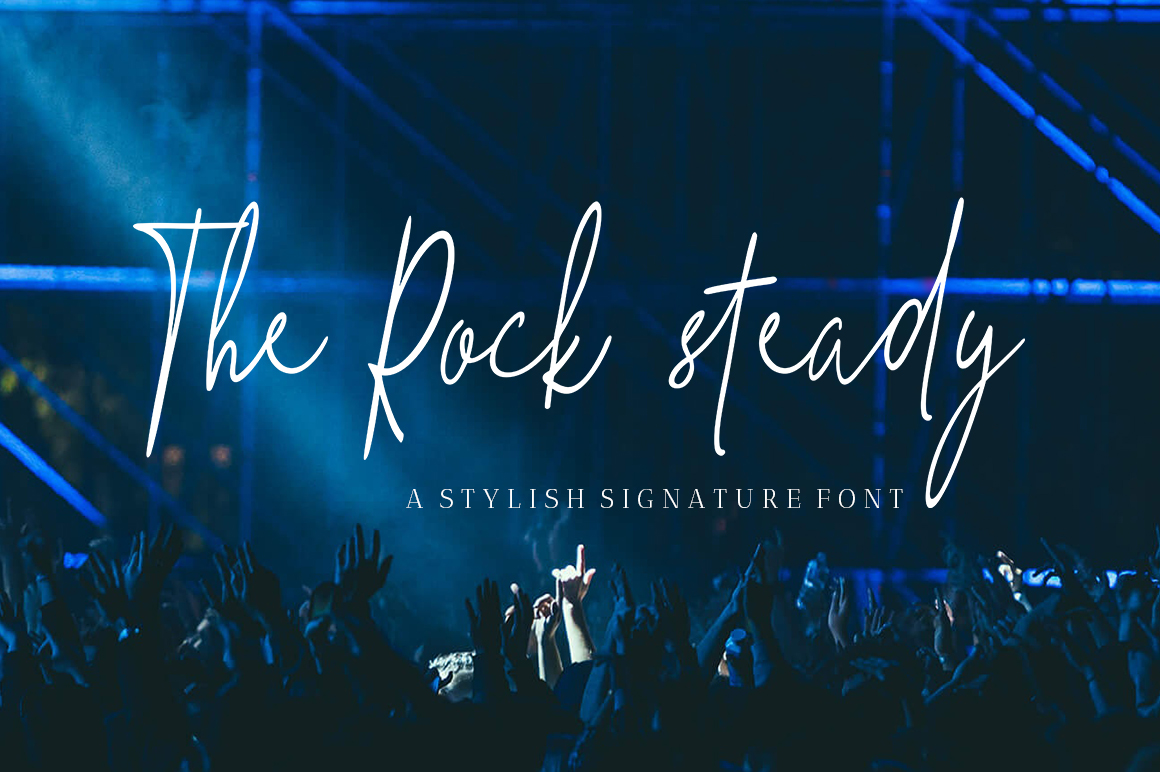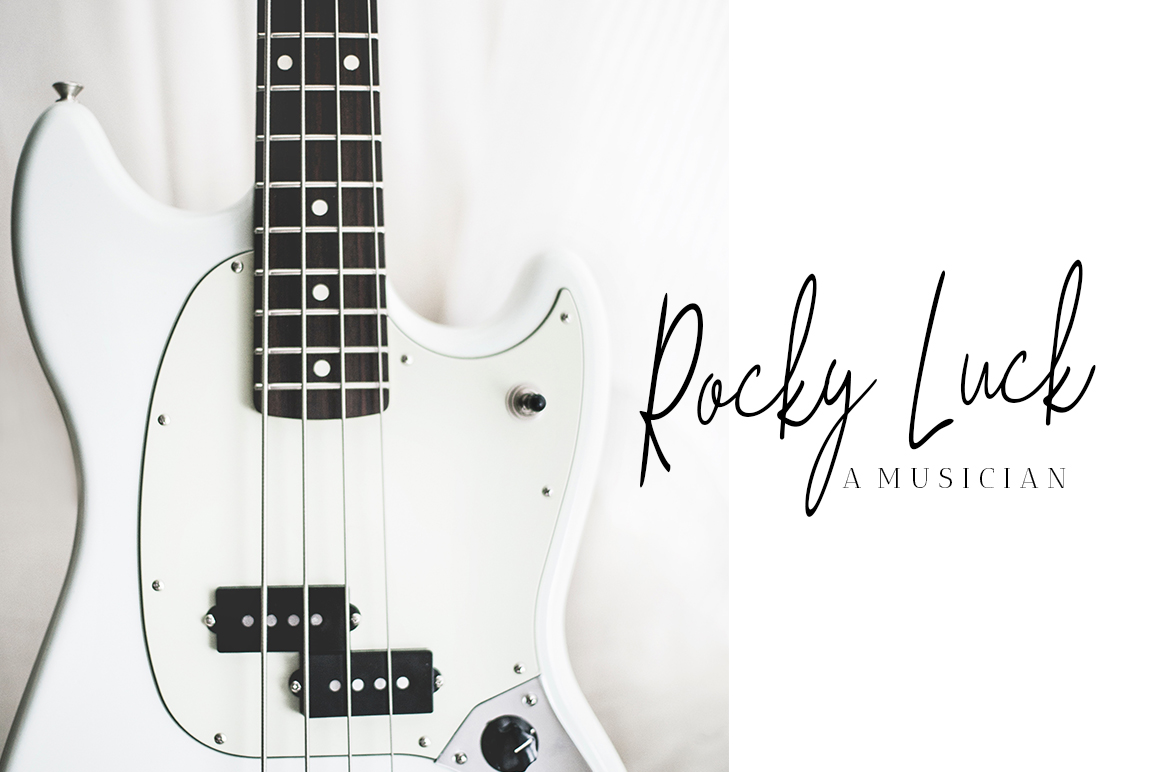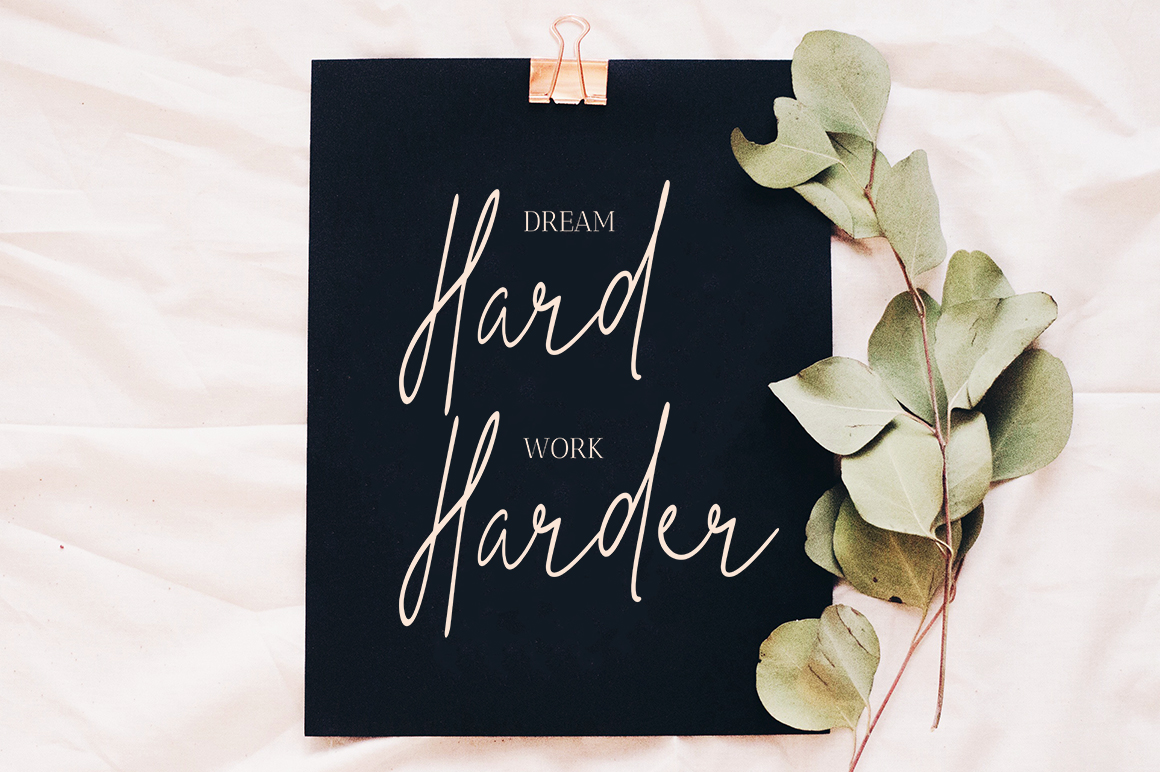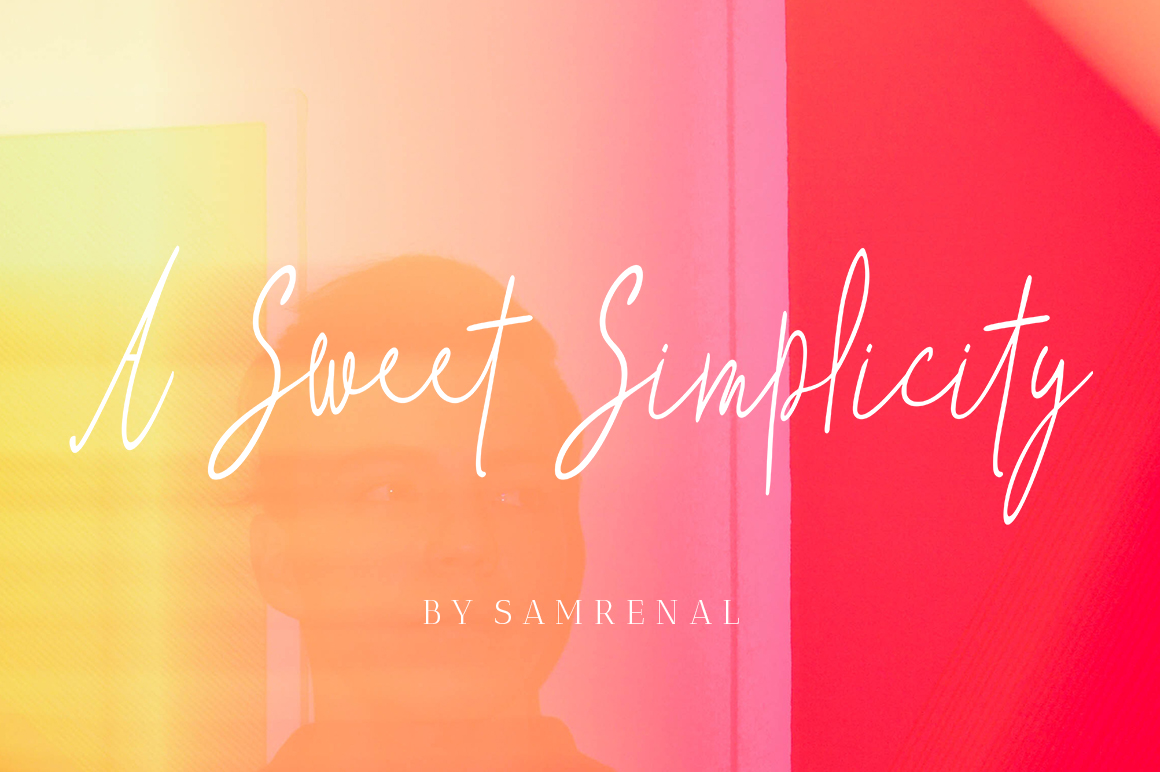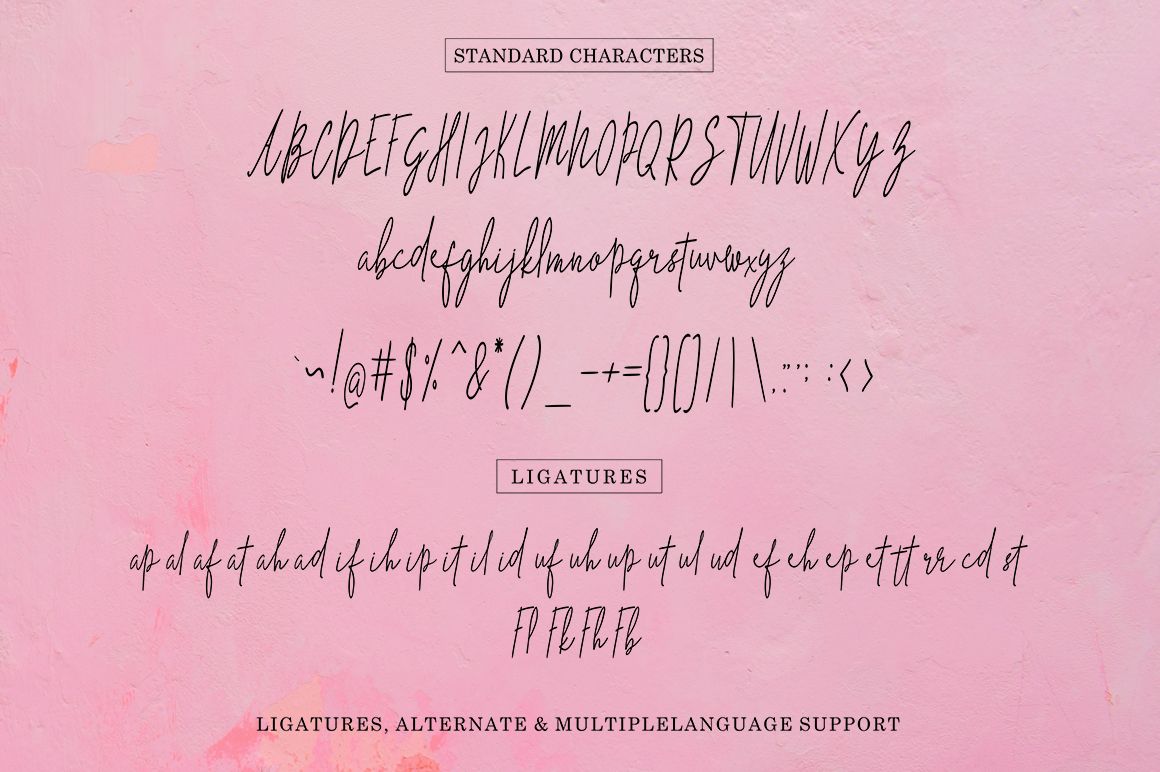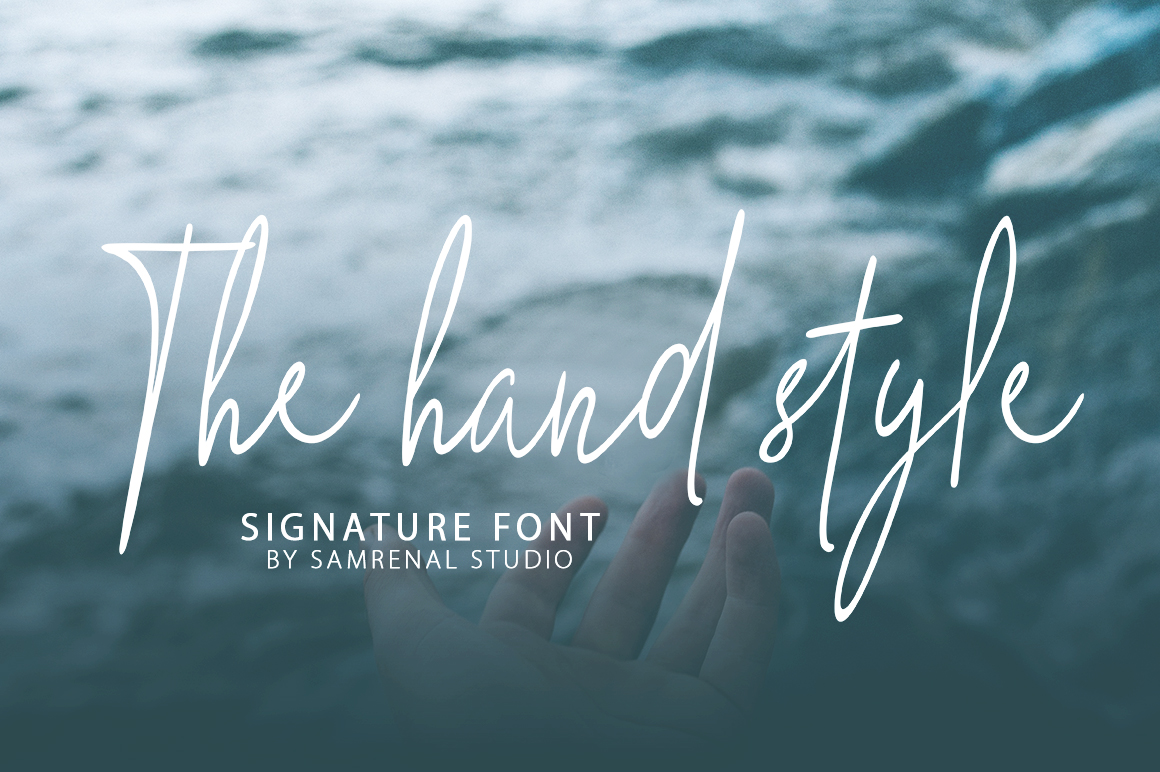
The Hand Style
The Hand Style Script Font
The hand style signature font includes several ligatures, alternates and international support for most western languages.To enable the alternates character, you need a program that supports OpenType features such as Adobe Illustrator CS, Adobe Indesign & CorelDraw X6-X7, Microsoft Word 2010 or later versions. Ideal for logo, wedding invitations, businness card, poster, merchandise, greeting cards, prints, blog banners, apparel, quotes and so much more! How to access all alternative characters: